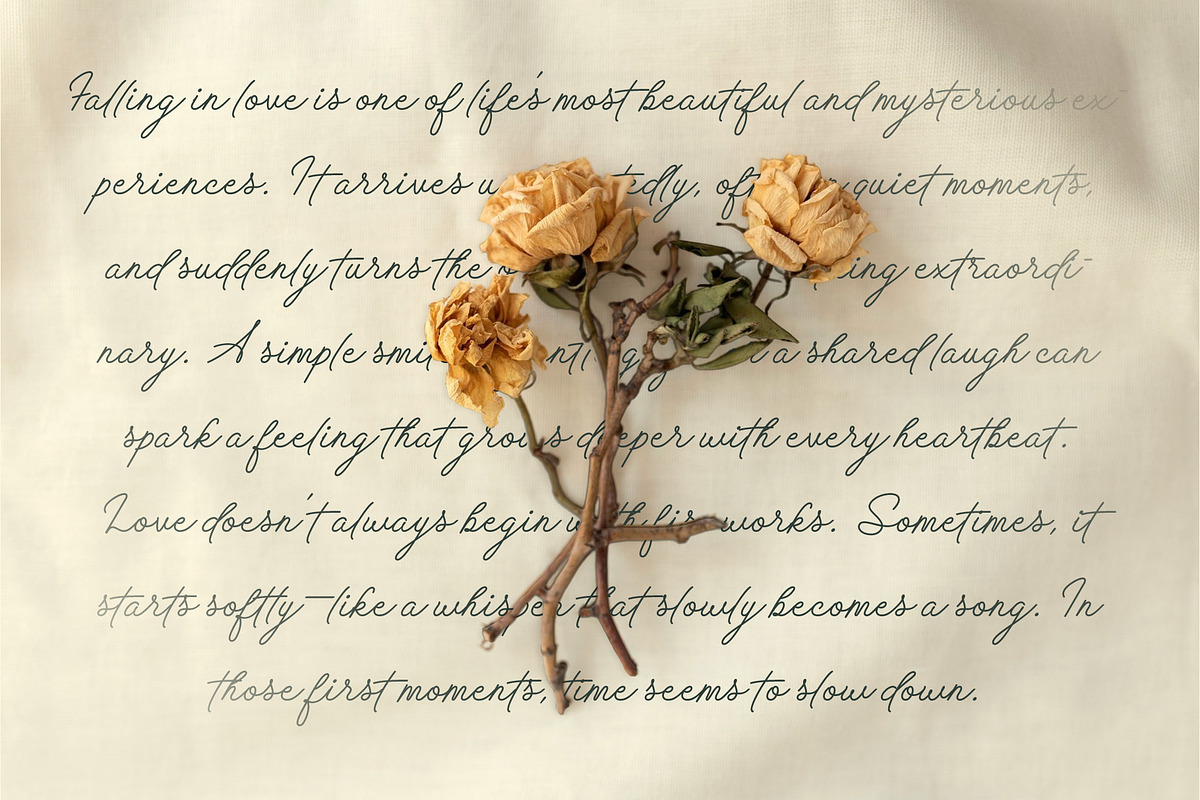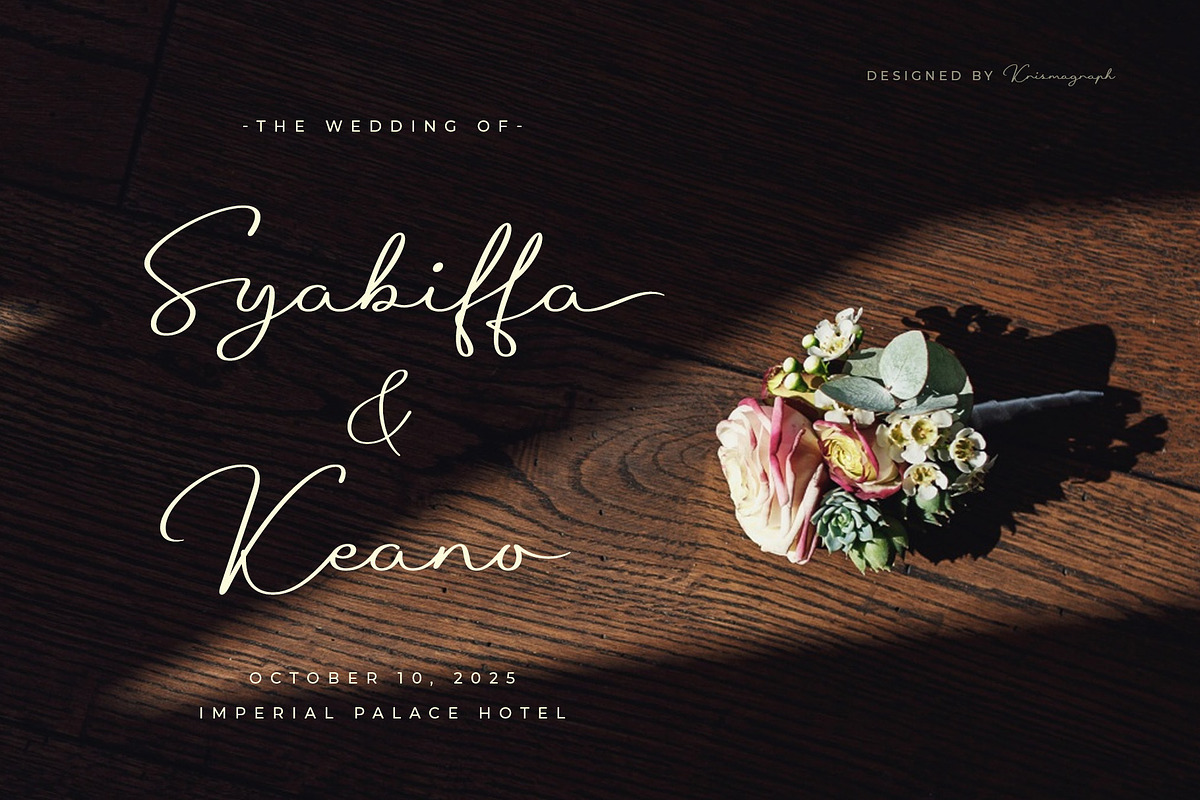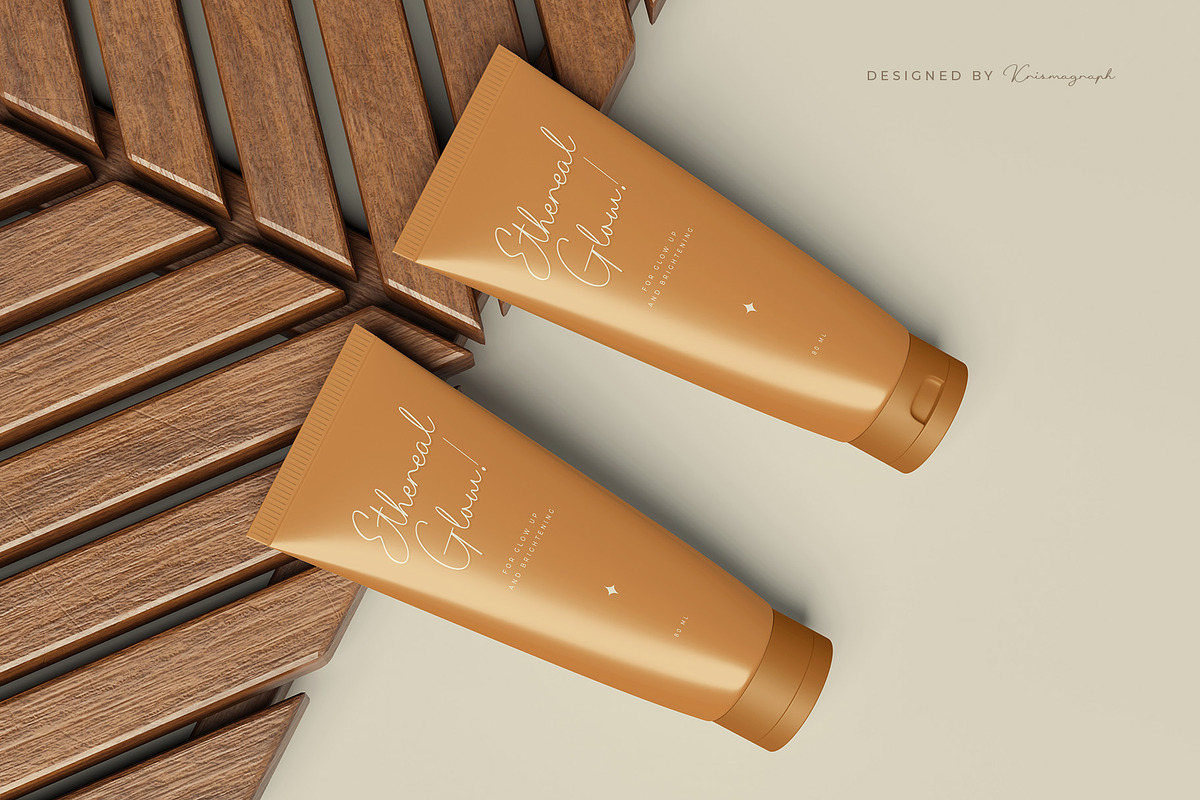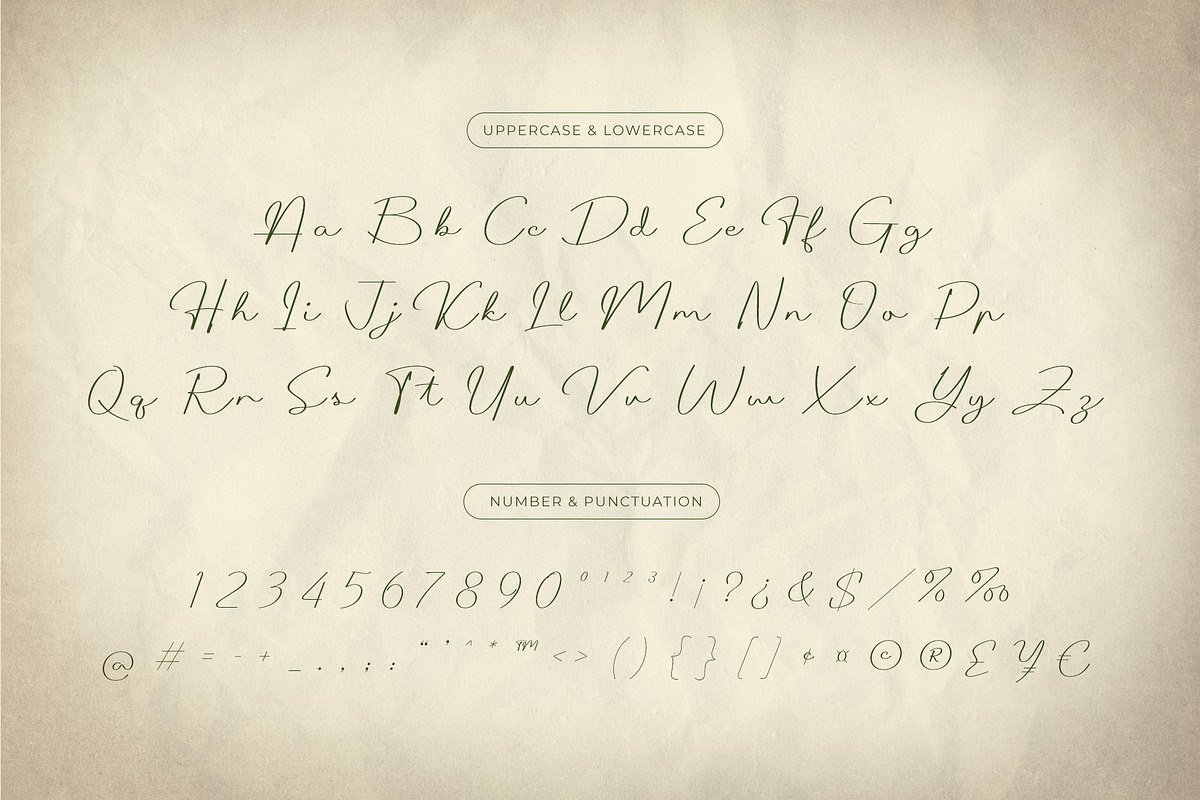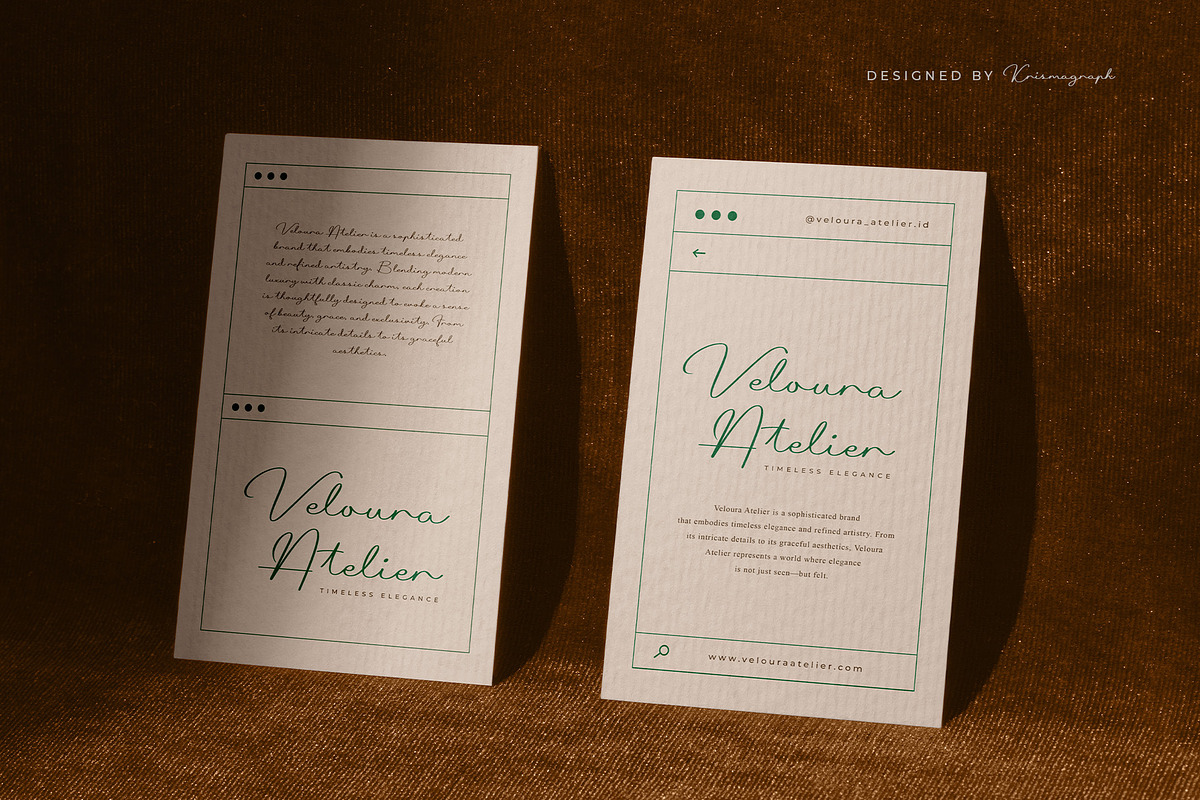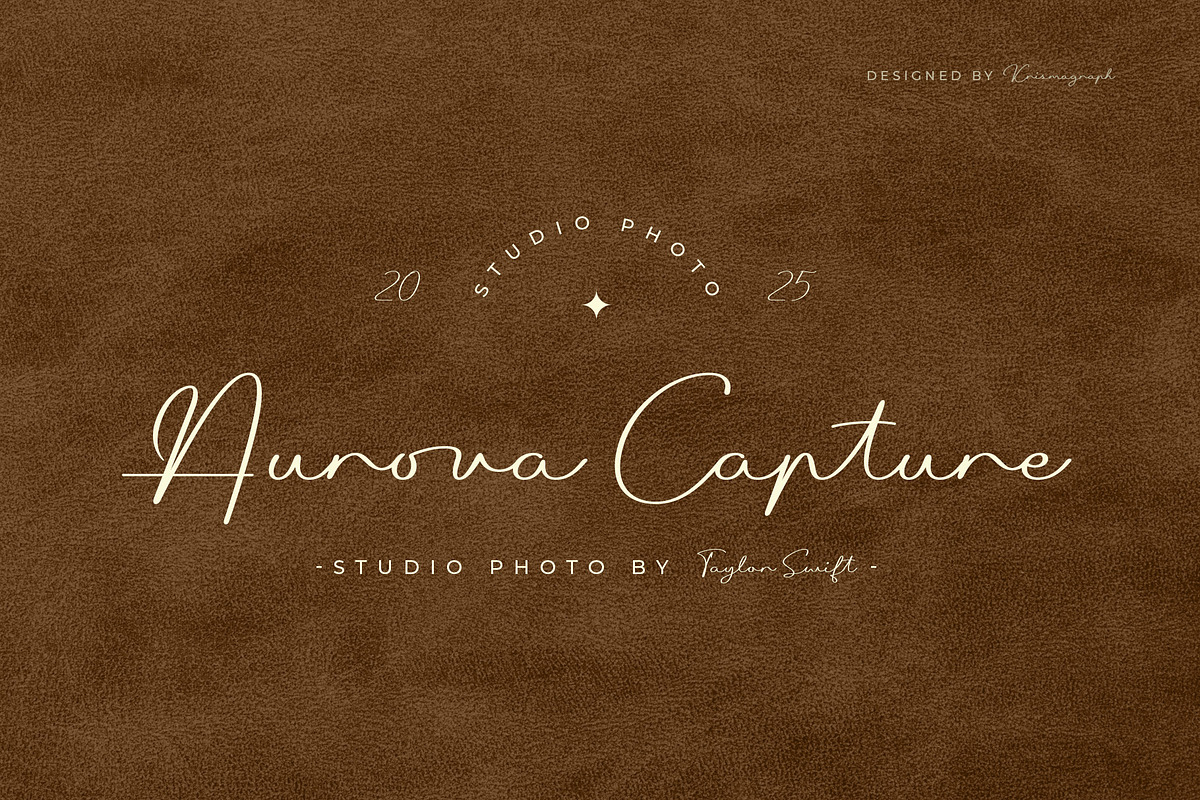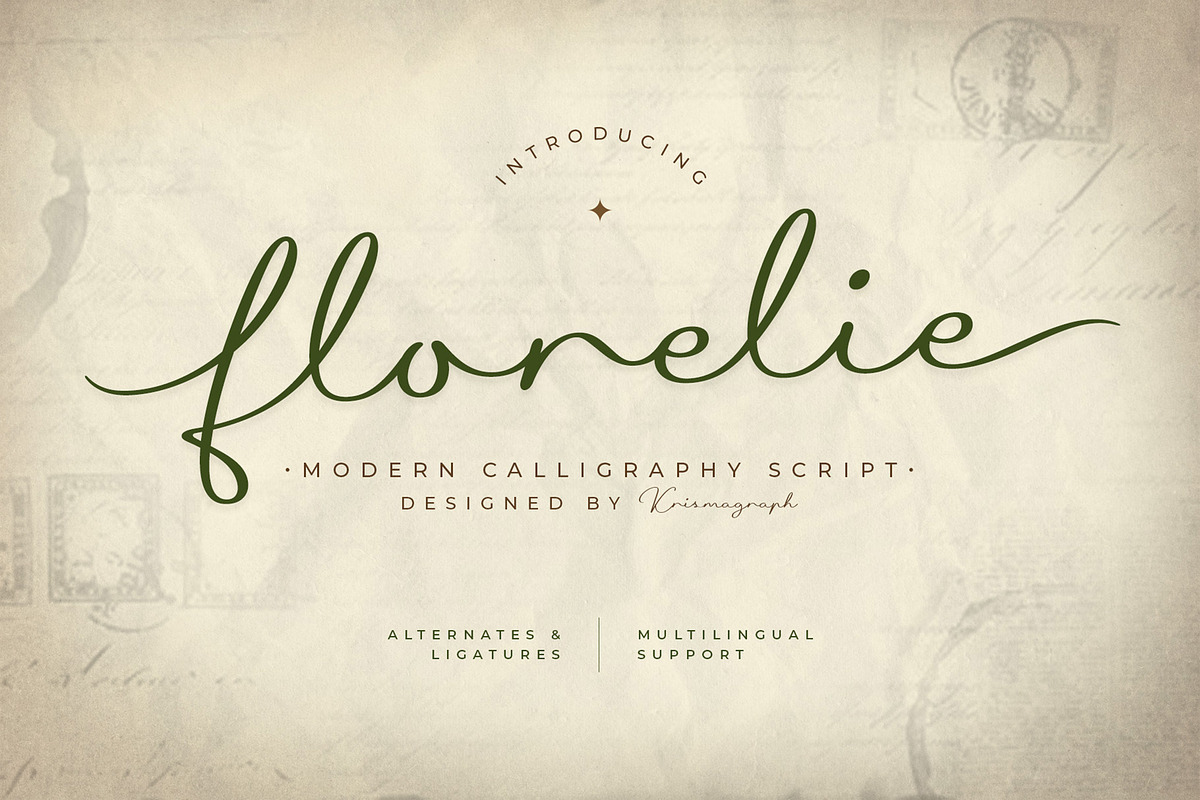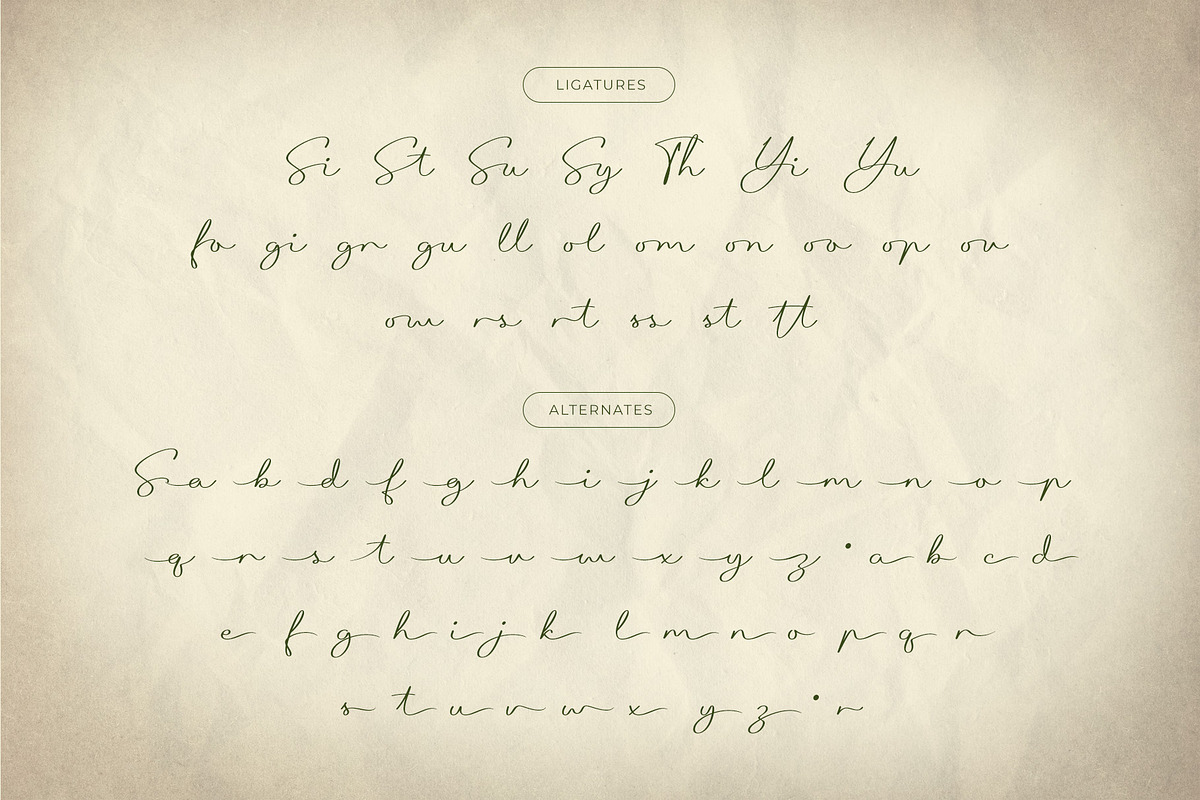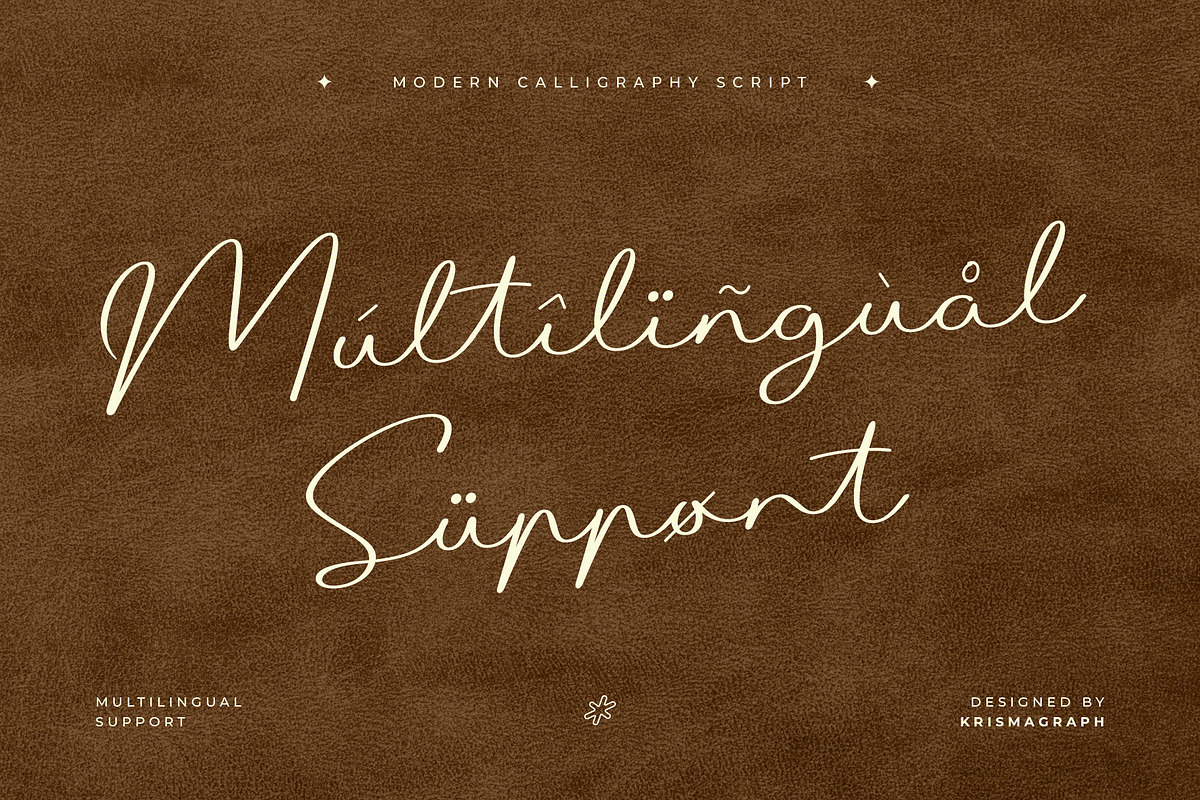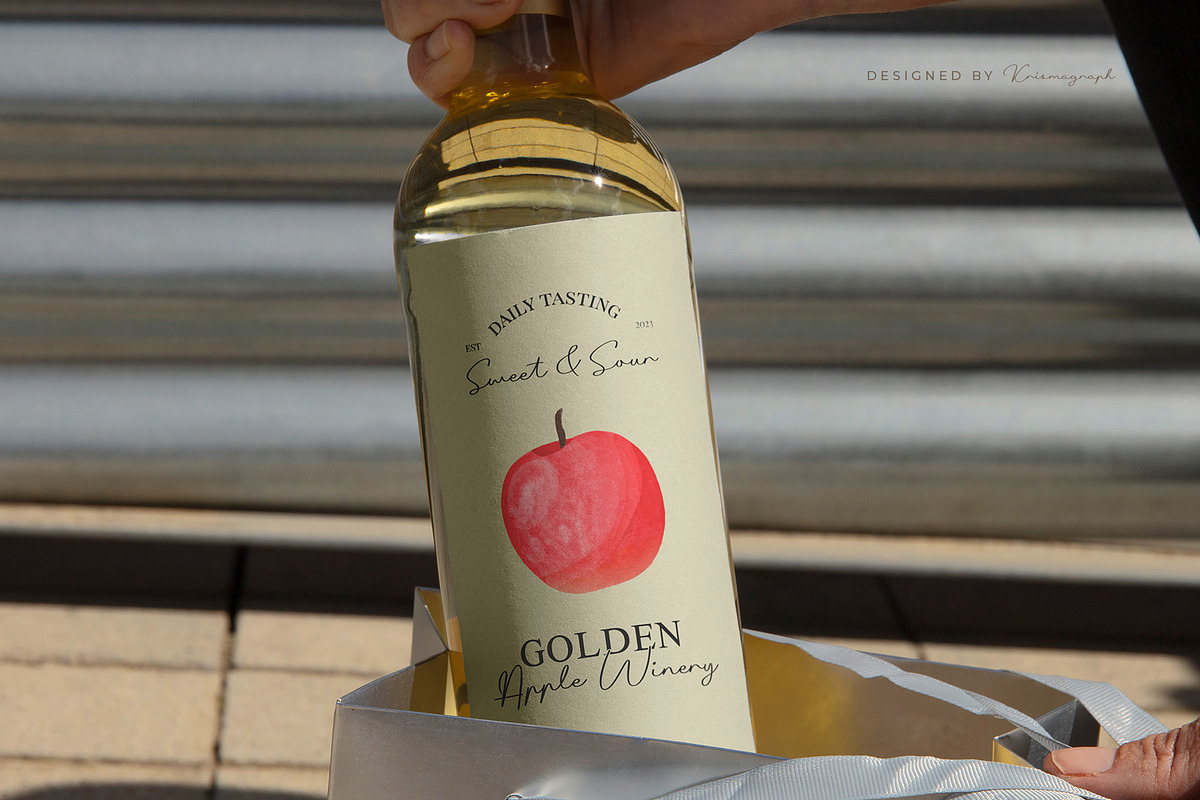
Florelie – Modern Calligraphy Script
Introducing Florelie, a modern calligraphy script font that beautifully blends elegance and warmth in every stroke. Designed with smooth curves and a natural handwritten flow, Florelie brings a timeless charm perfect for wedding invitations, branding projects, greeting cards, and elegant logo designs.
Every letter in Florelie was carefully crafted to deliver both beauty and readability. The font includes alternates and ligatures for creating unique combinations, allowing your design to feel more personal and sophisticated. With its multilingual support and graceful aesthetic, Florelie is a perfect choice for designers seeking a refined and versatile script font.
- Numbers, fractions
- Punctuation and symbols